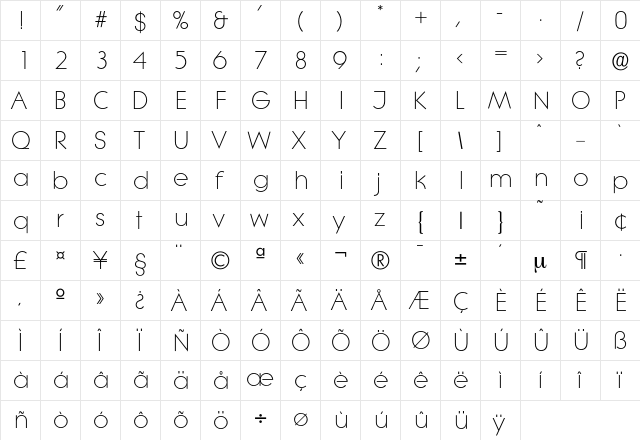
Litera-Light Regular Font Preview
Litera-Light Regular
Litera-Light Regular Font Details
Design Context for Litera-Light Typeface
Litera-Light is a composed and adaptable typeface that performs quietly and consistently across a wide range of design contexts. Its slender proportions lend an understated elegance to any composition.